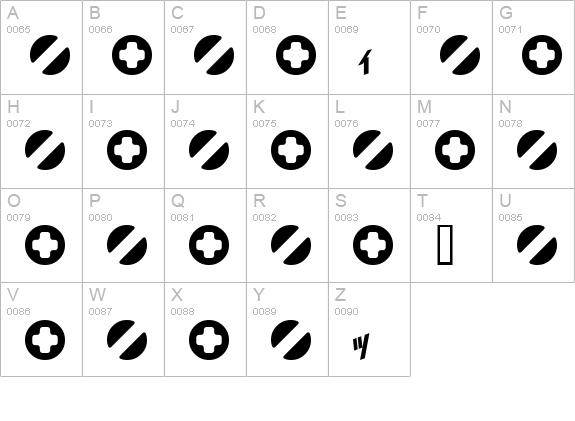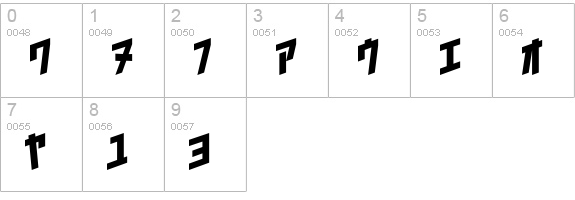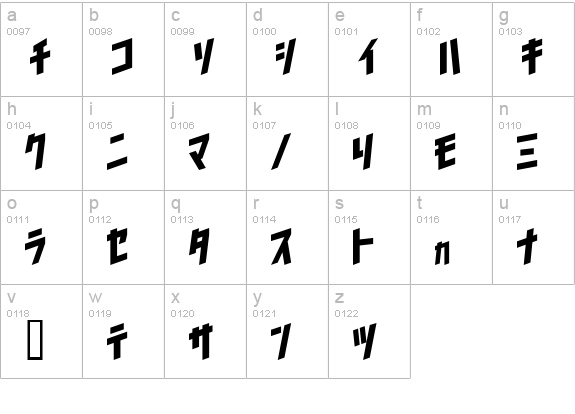
I2trigunMaximum J Font Details
Introducing the extraordinary I2trigunMaximum J font, a captivating and versatile typeface that is sure to make a lasting impression. This font effortlessly combines boldness with elegance, offering a unique and eye-catching design that will elevate any project to new heights of creativity. I2trigunMaximum J is a perfect choice for those seeking to add a touch of sophistication to their designs. Its carefully crafted letterforms boast clean lines and well-defined curves, resulting in a balanced and harmonious visual experience. The font's strong presence and commanding presence make it ideal for headlines, logos, and branding materials that require a bold statement. One of the most remarkable aspects of I2trigunMaximum J is that it is freely available to download at FontsMarket.com. This means that designers and creatives like you can access this magnificent font without any cost, making it an invaluable asset for any project or budget. Whether you are a professional designer or a hobbyist, this font ensures that quality and creativity are always within reach. The versatility of I2trigunMaximum J knows no bounds. Its various weights and styles allow for endless possibilities, enabling you to effortlessly adapt the font to suit your specific needs. From sleek and modern to classic and timeless, this font can transform any design into a masterpiece. I2trigunMaximum J is not just a font; it is a statement. Its bold and captivating aesthetic will captivate audiences and leave a lasting impression. Whether used in print or digital media, this font has the power to elevate your project and make it stand out from the crowd. Don't miss out on the opportunity to enhance your designs with the remarkable I2trigunMaximum J font. Download it for free at FontsMarket.com and unlock a world of creativity and possibilities. Elevate your designs today with this magnificent typeface and witness the transformative power it brings to your projects.